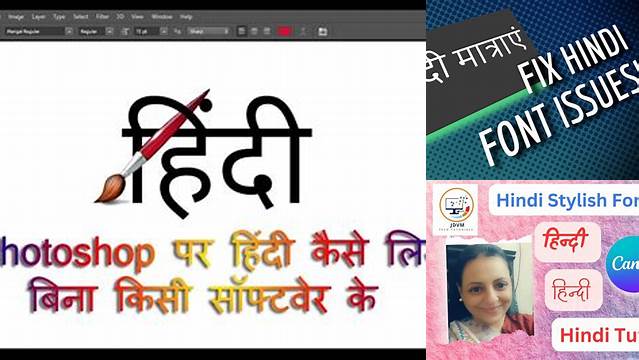
Use Hindi Fonts In Photoshop: A Step-by-Step Guide
Are you looking to add a touch of Indian culture to your designs? Using Hindi fonts in Photoshop can be a fantastic way to achieve that. Whether you're creating posters, social media graphics, or any other visual content, incorporating Hindi text can make your work stand out. However, it's not always as straightforward as using English fonts. This comprehensive guide will walk you through everything you need to know to successfully use Hindi fonts in Photoshop, from finding the right fonts to troubleshooting common issues.
Important Considerations When Choosing Hindi Fonts
When you're browsing for Hindi fonts, keep these points in mind to ensure you select the right ones for your project:
- Readability: The primary goal is to ensure your text is easily readable. Complex or overly stylized fonts may look appealing but can hinder readability, especially at smaller sizes. Look for fonts with clear, well-defined characters.
- Character Support: Not all Hindi fonts support the full range of Devanagari characters and ligatures. If you need to use specific characters or complex conjuncts, verify that the font includes them. Many font providers offer character maps or glyph previews to check this.
- Style: Consider the overall style and tone of your design. A traditional, elegant font might be suitable for religious or cultural content, while a modern, bold font could be better for a contemporary design.
2. Configuring Photoshop for Hindi Typing
Once you've installed your Hindi fonts, the next step is to configure Photoshop to handle Hindi text properly. This involves adjusting language settings and text engine options to ensure accurate rendering of complex scripts like Devanagari. Here’s how to do it:
Enabling World-Ready Composer:
The World-Ready Composer is a text engine in Photoshop designed to handle complex scripts, including those from right-to-left languages and languages with contextual shaping, like Hindi. Enabling this feature ensures that Hindi text is displayed correctly.
- Go to Edit > Preferences > Type (or Photoshop CC > Preferences > Type on macOS).
- In the Type preferences, check the box labeled "Show Indic Options."
- Click OK to save the changes.
- Restart Photoshop for the changes to take effect.
- Now, when you use the Type tool, you will see an option to choose the text engine. Go to Type > Language Options and select "World-Ready Composer."
Choosing the Right Font:
After enabling the World-Ready Composer, select the Hindi font you want to use from the font dropdown menu in the Character panel. If you don't see your font, make sure Photoshop has been restarted after installing the font.
Setting the Language:
In the Character panel (Window > Character), set the language to "Hindi" from the language dropdown menu. This helps Photoshop understand the specific typographic rules for Hindi text.
Troubleshooting Text Display Issues
Sometimes, even after configuring Photoshop, you might encounter issues with how Hindi text is displayed. Here are some common problems and their solutions:
- Incorrect Character Rendering: If characters appear broken or disjointed, ensure that the World-Ready Composer is enabled and the correct font is selected. Also, verify that the font supports the specific characters you are using.
- Glyph Substitution: Some fonts might substitute certain characters with default glyphs. This can happen if the font doesn't include the specific character or ligature. Try using a different font or check the font's character map to see if the character is available.
- Text Direction Issues: Hindi is written from left to right, but sometimes Photoshop might misinterpret the text direction. Make sure the text direction is set to left-to-right in the Paragraph panel (Window > Paragraph).
- Font Cache Problems: Occasionally, Photoshop might have issues with its font cache. Clearing the font cache can resolve display problems. To do this, close Photoshop, locate the Photoshop font cache folder (usually in the user's Library folder on macOS or the AppData folder on Windows), and delete the contents. Restart Photoshop, and it will rebuild the font cache.
3. Typing in Hindi: Input Methods
Now that you have set up Photoshop to work with Hindi fonts, you need a way to actually type in Hindi. There are several input methods available, each with its own advantages.
Using a Hindi Keyboard Layout:
The most straightforward way to type in Hindi is to use a Hindi keyboard layout. This layout maps Hindi characters to specific keys on your keyboard. Both Windows and macOS offer built-in Hindi keyboard layouts.
Windows:
- Go to Settings > Time & Language > Language.
- Click "Add a language" and select "Hindi."
- Once Hindi is added, click on the language in the list and select "Options."
- Under Keyboards, click "Add a keyboard" and choose a Hindi keyboard layout (e.g., Hindi Phonetic).
- You can switch between keyboard layouts using the language indicator in the taskbar.
macOS:
- Go to System Preferences > Keyboard > Input Sources.
- Click the "+" button to add a new input source.
- Search for "Hindi" and select a Hindi keyboard layout (e.g., Devanagari - QWERTY).
- You can switch between keyboard layouts using the input menu in the menu bar.
Using Transliteration Tools:
Transliteration tools allow you to type Hindi phonetically using the English alphabet. The tool then converts your English input into the corresponding Hindi characters. This method is useful if you're not familiar with the Hindi keyboard layout.
- Google Input Tools: Google Input Tools is a free transliteration tool that supports Hindi. You can use it online or download it as a Chrome extension. Simply type phonetically in English, and the tool will suggest the corresponding Hindi characters.
- Lipikaar: Lipikaar is another popular transliteration tool for Hindi. It offers a simple and intuitive interface for typing Hindi phonetically.
Copy-Pasting Hindi Text:
If you already have Hindi text from another source, you can simply copy and paste it into Photoshop. This is useful if you're working with existing content or translating text from English to Hindi.
Tips for Efficient Hindi Typing
- Practice: The more you practice typing in Hindi, the faster and more efficient you'll become. Take some time to familiarize yourself with the keyboard layout or transliteration tool.
- Use Keyboard Shortcuts: Learn keyboard shortcuts for commonly used characters and ligatures. This can significantly speed up your typing.
- Proofread: Always proofread your Hindi text carefully to ensure there are no errors in spelling or grammar. It's helpful to have someone who is fluent in Hindi review your work.
4. Advanced Tips for Working with Hindi Text in Photoshop
To take your Hindi typography in Photoshop to the next level, here are some advanced tips to consider:
Using OpenType Features:
Many high-quality Hindi fonts come with OpenType features that allow you to access stylistic alternates, ligatures, and other typographic enhancements. The Character panel in Photoshop provides access to these features. Experiment with different OpenType options to create unique and visually appealing text.
Adjusting Kerning and Tracking:
Kerning and tracking are essential for fine-tuning the spacing between characters and words. Adjust these settings in the Character panel to improve the overall readability and visual appeal of your Hindi text.
Working with Paragraph Styles:
If you're working on a large document with multiple instances of Hindi text, using paragraph styles can save you a lot of time and effort. Create paragraph styles for different types of text (e.g., headings, body text, captions) and apply them consistently throughout your document.
Creating Text Effects:
Photoshop offers a wide range of text effects that you can apply to your Hindi text. Experiment with drop shadows, glows, bevels, and other effects to add depth and visual interest to your designs. Just be careful not to overdo it, as excessive effects can detract from readability.
Using Hindi fonts in Photoshop can open up a world of creative possibilities. By following the steps outlined in this guide, you can successfully install Hindi fonts, configure Photoshop for Hindi typing, and create visually stunning designs that incorporate Hindi text. Whether you're a seasoned designer or just starting out, mastering Hindi typography in Photoshop is a valuable skill that can enhance your creative work and connect with a wider audience. So go ahead, explore the beauty of Hindi fonts and let your creativity flow!